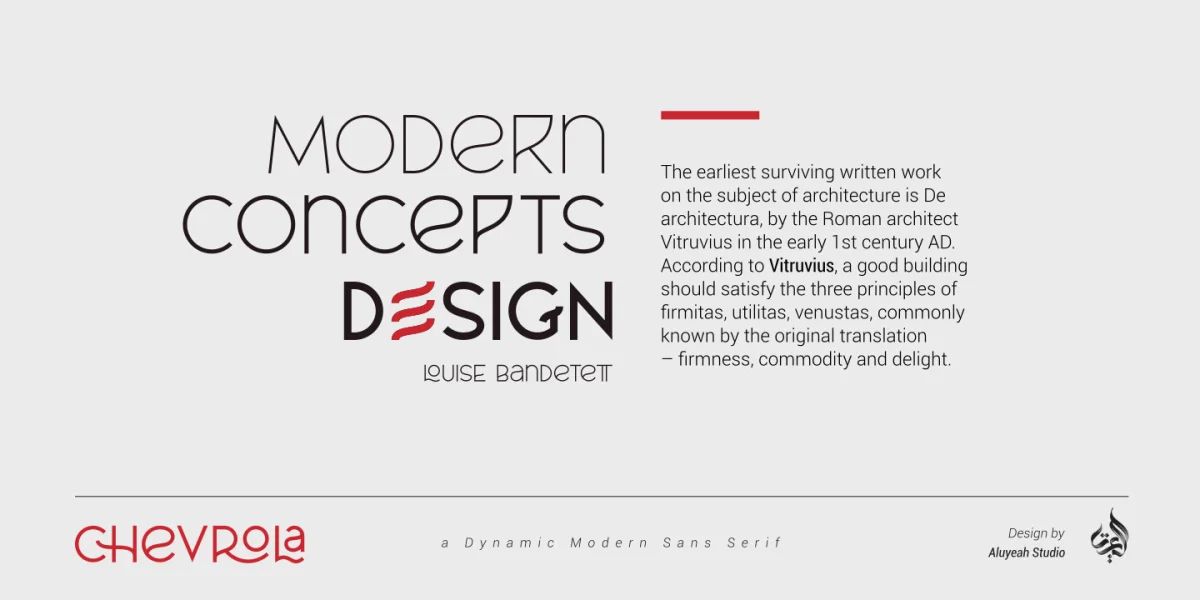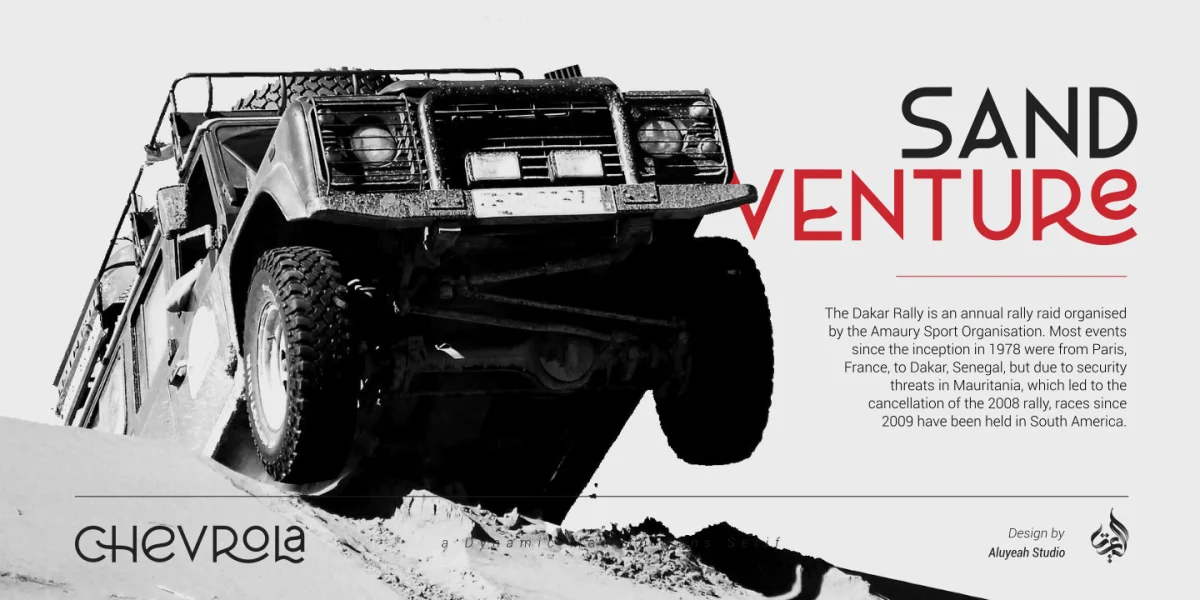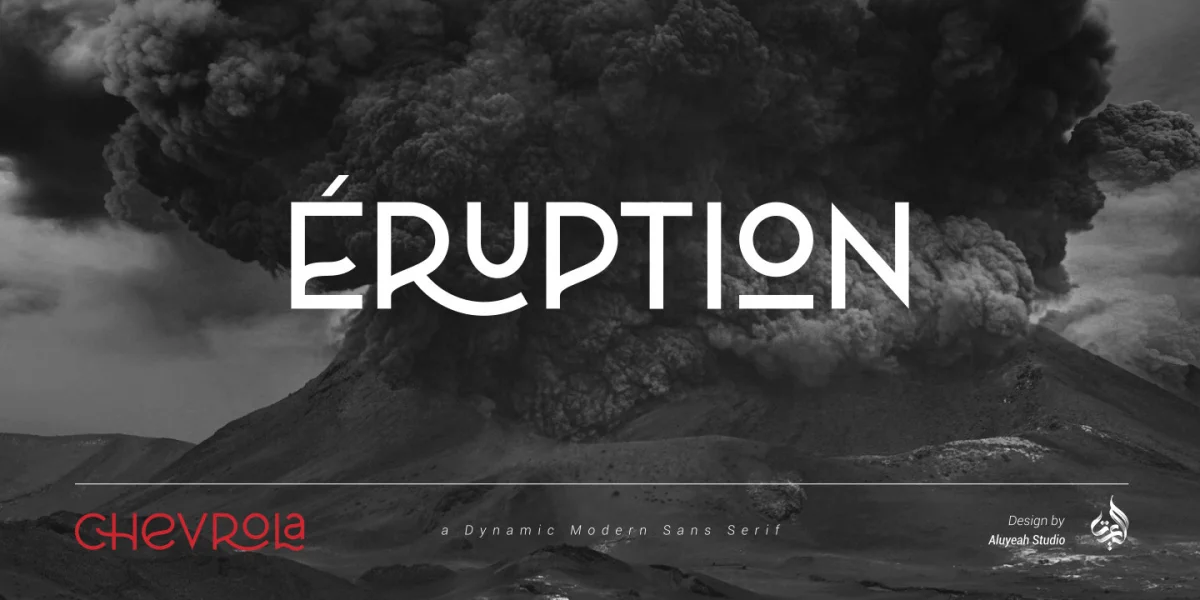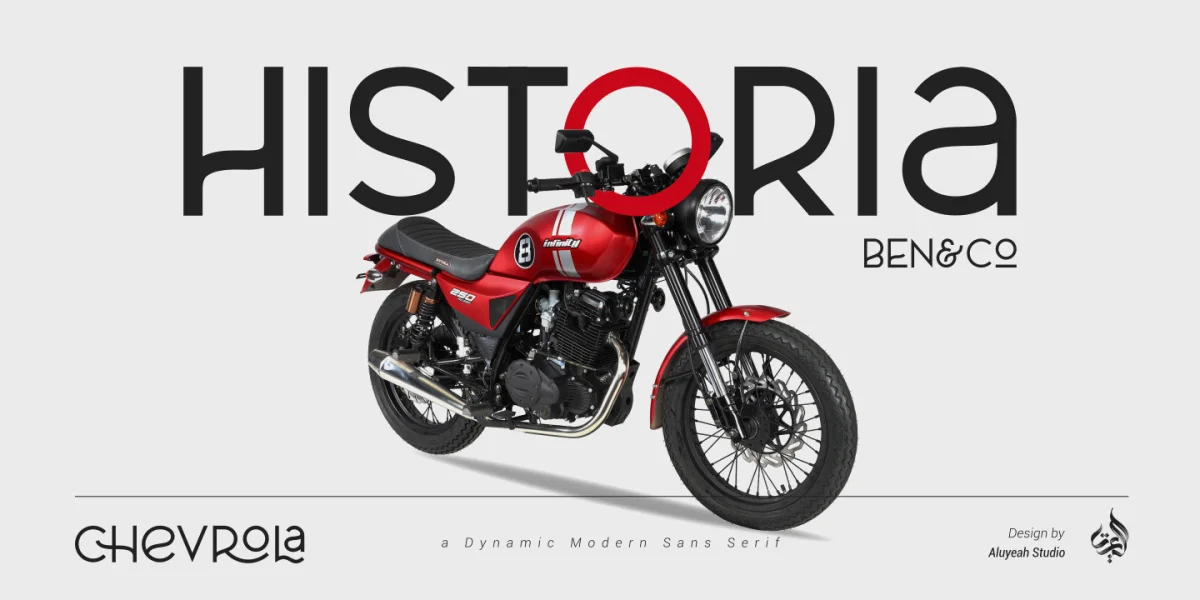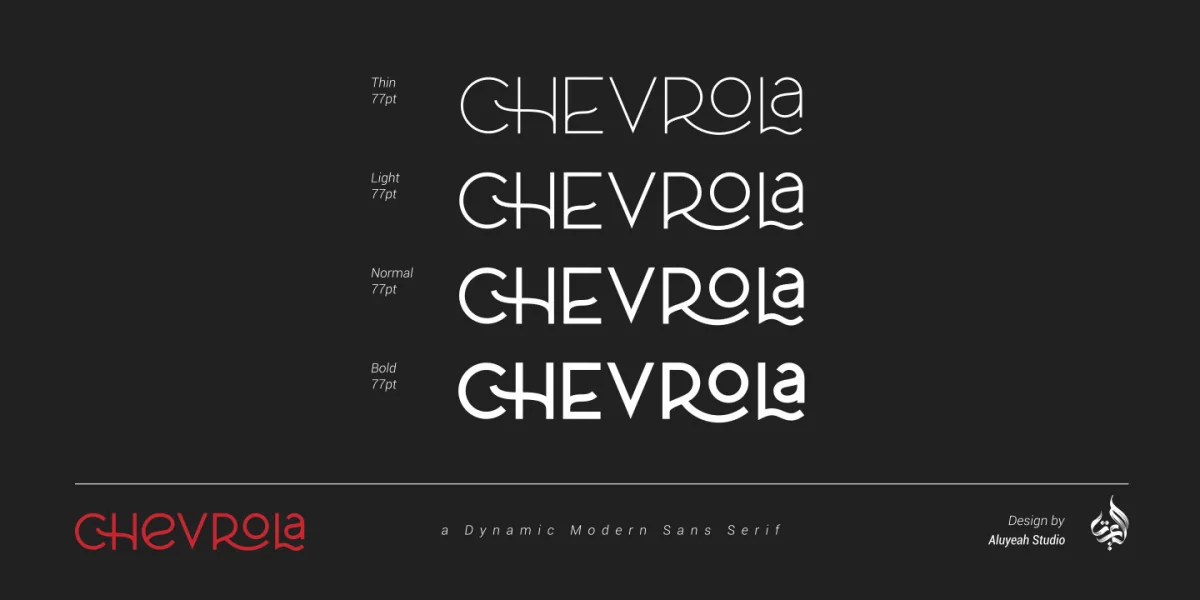
CHEVROLA is a dynamic modern sans serif. Strong, with curve elegant touch. It is a rounded, geometric near-monoline construction sans serif typeface with display details. Give it modern, simple, elegant, chic, cool, and strong vibes. Each font looks amazing in large headlines. CHEVROLA works great in any branding, logos, magazines, packaging.